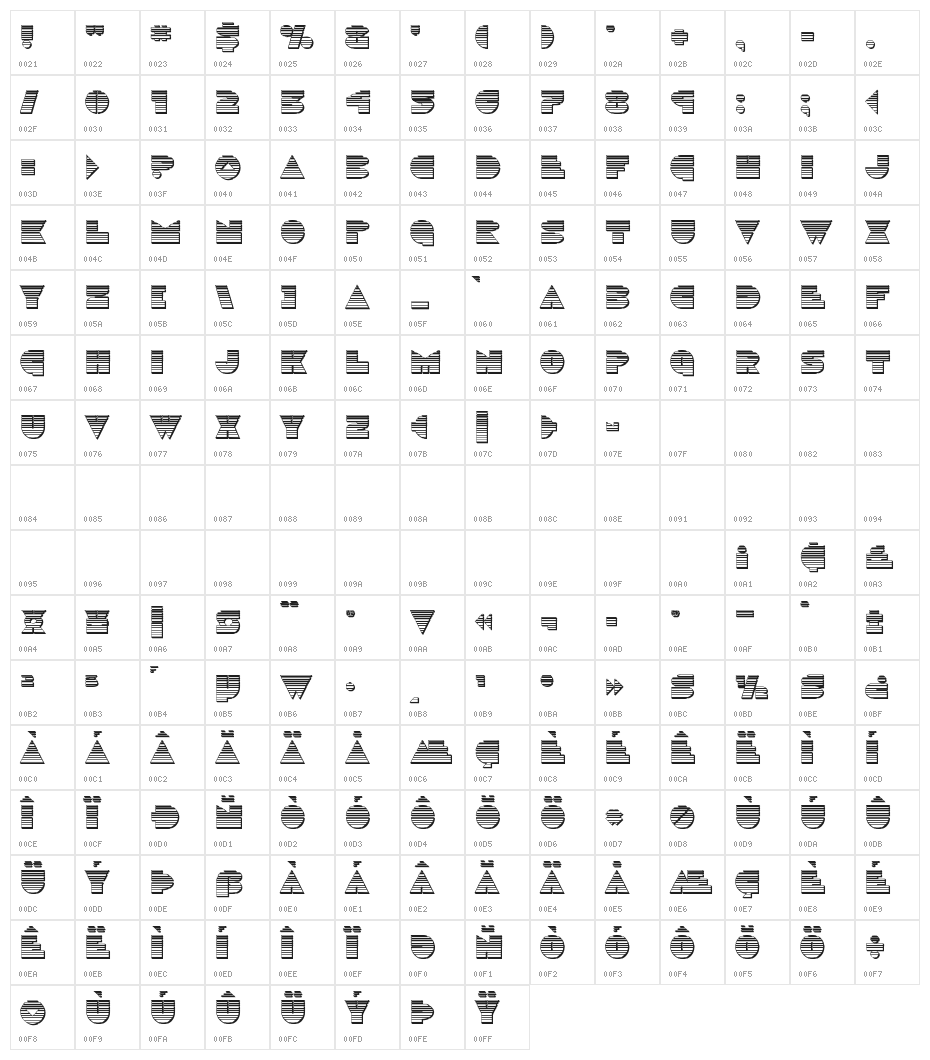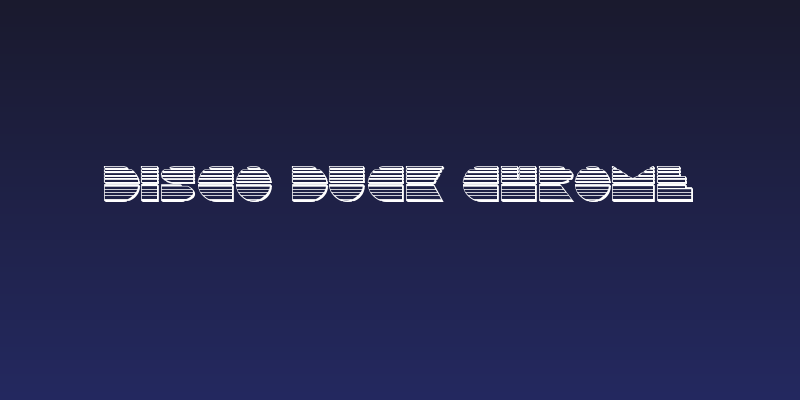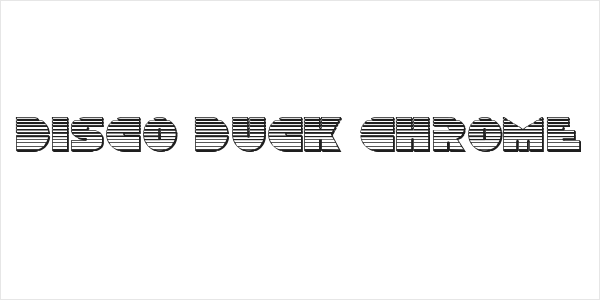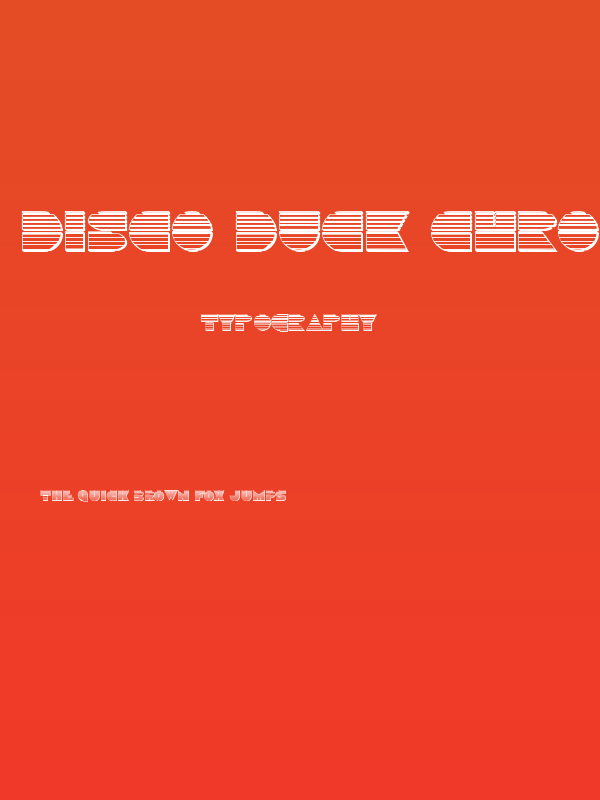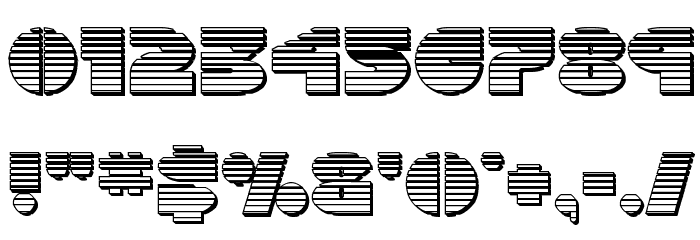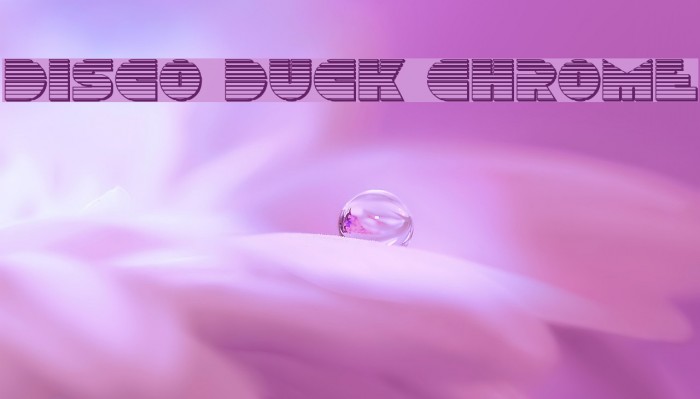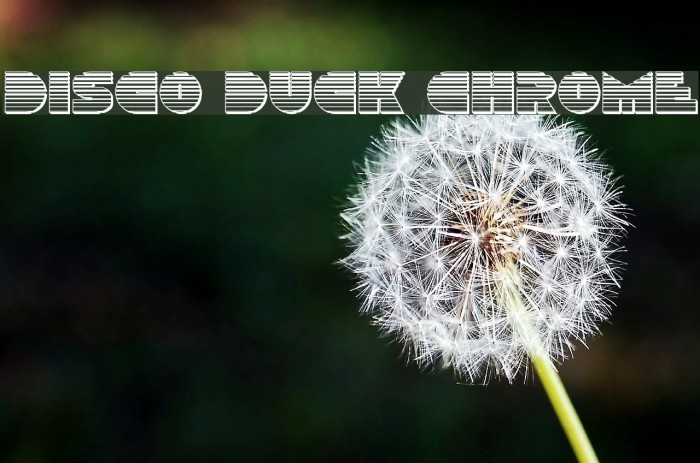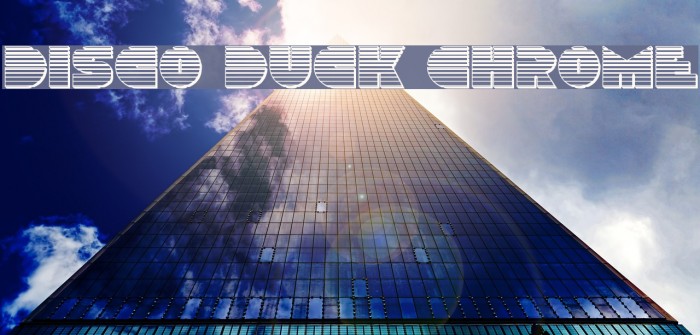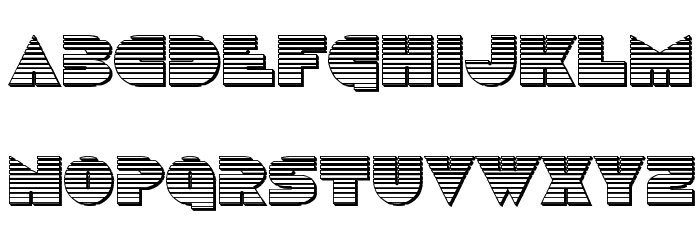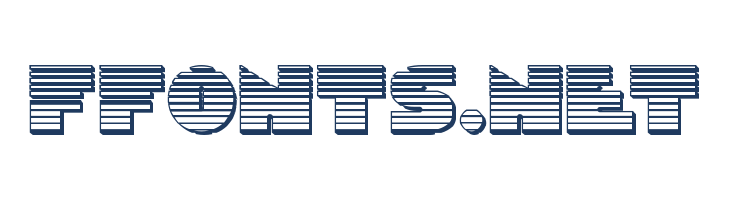
Disco Duck Chrome Font
Disco Duck Chrome Description
This font features a bold, decorative style with a unique striped pattern running horizontally across each character. The letters are uppercase and have a geometric, block-like structure, giving them a modern and playful appearance. The consistent use of horizontal lines creates a sense of rhythm and movement, reminiscent of retro or disco themes. The numbers and special characters follow the same design, ensuring a cohesive look throughout. This font is eye-catching and ideal for projects that require a bold statement.
| Overall Style | Retro, Decorative |
| Use Case | Headlines, Posters, Logos |
| Proposed Projects | Ideal for retro-themed posters, party invitations, music album covers, and any design needing a bold, playful touch. |